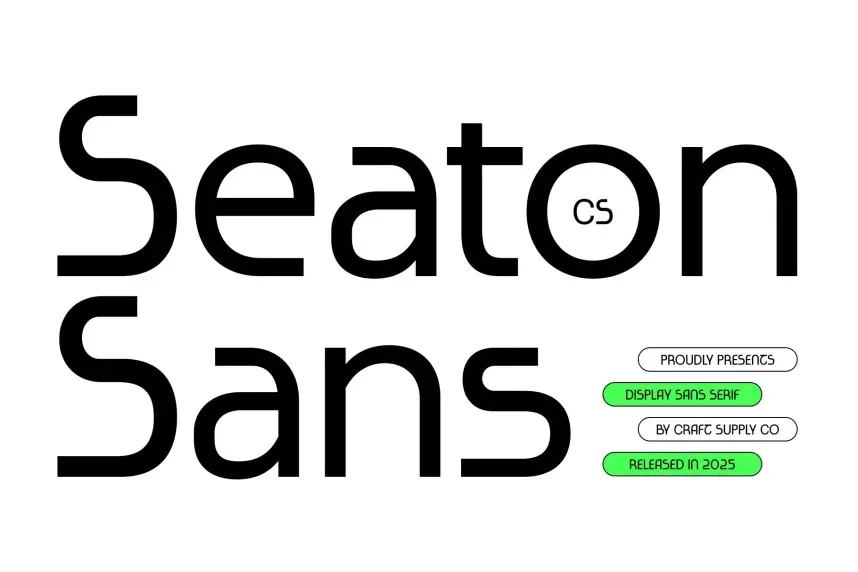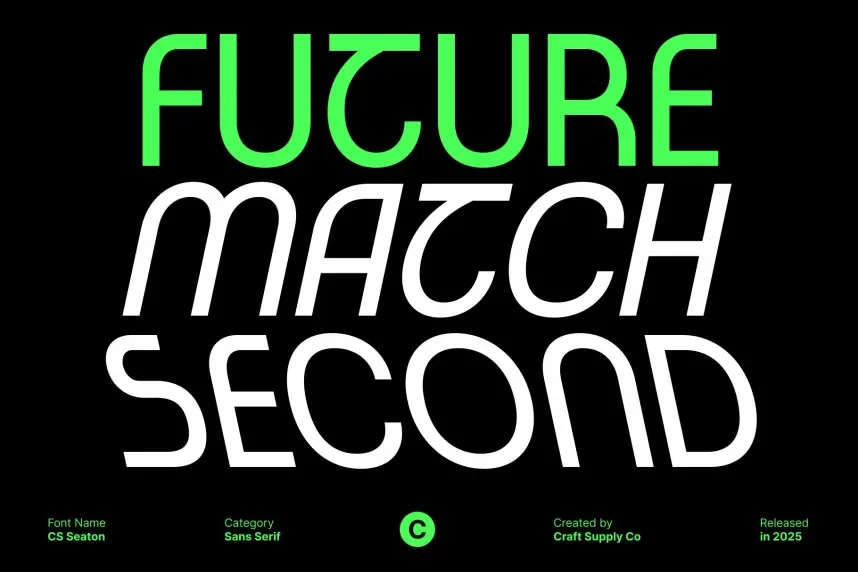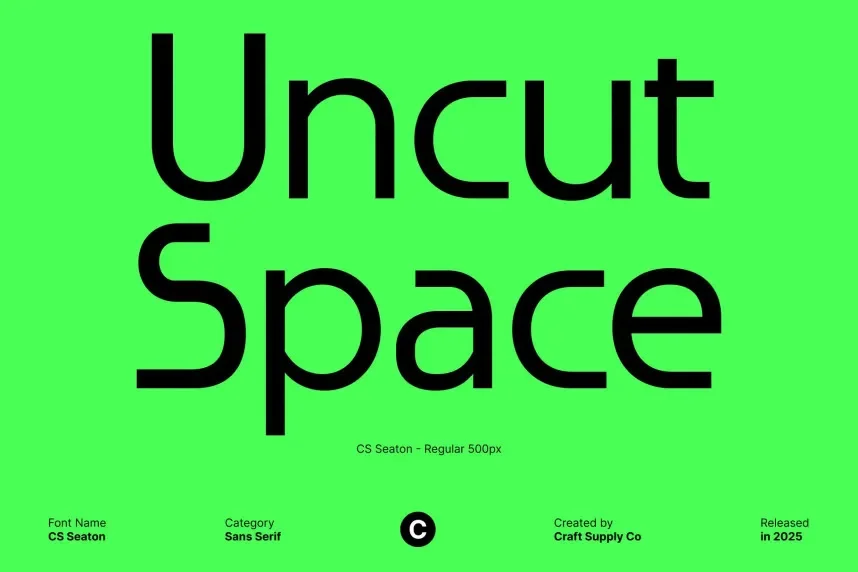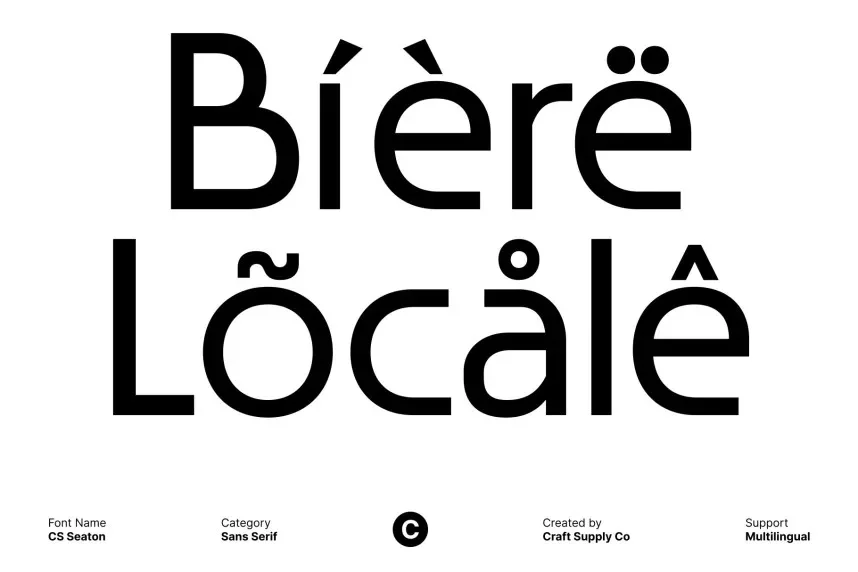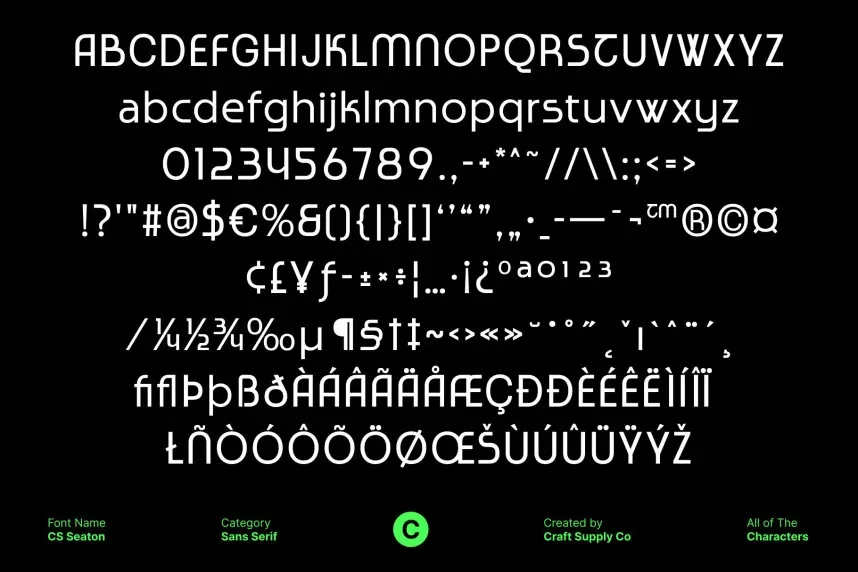
CS Seaton Font addresses the need for an elegant and versatile serif typeface in professional design. It’s a great choice for projects where readability and sophistication are essential.
CS Seaton is a serif font with clean, classic letterforms and balanced stroke contrast. The font combines modern proportions with traditional serif elements, making it highly readable while maintaining a formal, high-end appearance.